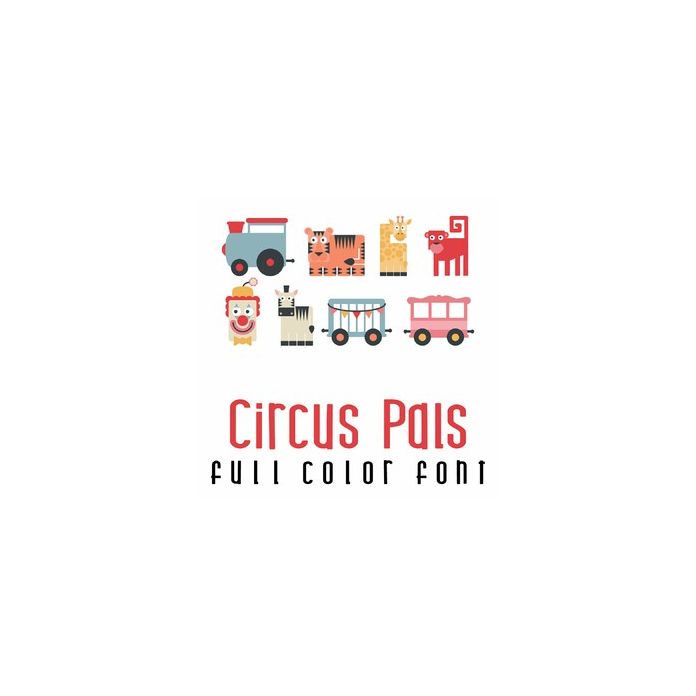
This adorable full-color doodlebat font features 26 circus characters and train. Perfect for cards, crafts, gifts, decor, scrapbook pages, planner stickers, and more!